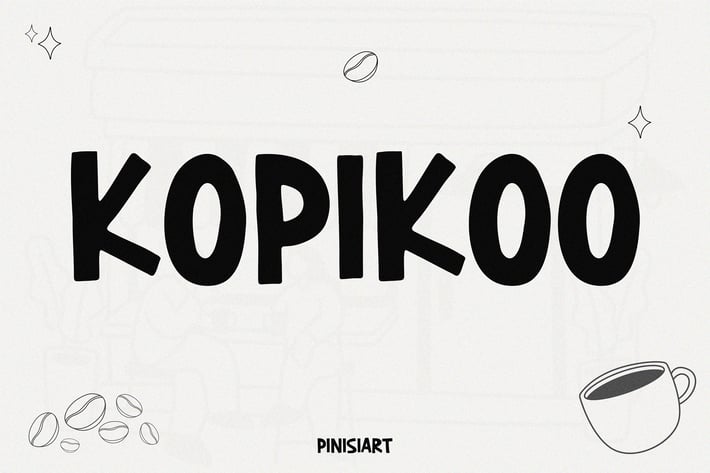
Cafe Font - Kopikoo
KOPIKOO is a bold yet welcoming rounded sans-serif font crafted with the essence of your neighborhood coffee shop. It’s infused with the energy of warmth, friendliness, and handcrafted charm—making it ideal for brands that want to appear approachable, creative, and memorable.
This typeface is purpose-built for café branding, packaging design, social media promotions, and menu layouts. It captures that delightful “coffee moment” feel, perfect for logos, takeaway cups, storefront signage, loyalty bags, and Instagram quote posts.
The rounded strokes and solid letterforms give KOPIKOO a contemporary yet retro-inspired look, balancing modern readability with nostalgic personality. Its versatility ensures your message always comes through with flavor.
KOPIKOO is the typeface that gives your brand a voice—warm, familiar, and full of heart. Whether you're designing for a cozy café, an artisanal product, or an authentic local brand, this font becomes your visual aroma—instantly drawing people in.
Rounded Sans-Serif Style – Offers a soft, modern appearance with an inviting tone
Uppercase, Lowercase, Numbers, Symbols – Full character support for real-world usability
Handcrafted Vibe – Feels custom-made and adds personality to packaging and print
Perfect for Small Businesses – Especially suited for cafes, restaurants, food trucks, or lifestyle brands
* Optimized for Social Media & Print – Clean structure ensures clarity even at small sizes
KOPIKOO solves the problem of bland branding by injecting charm and consistency into your designs. It enhances your storytelling, gives your packaging a visual flavor, and ensures your café or product stands out.